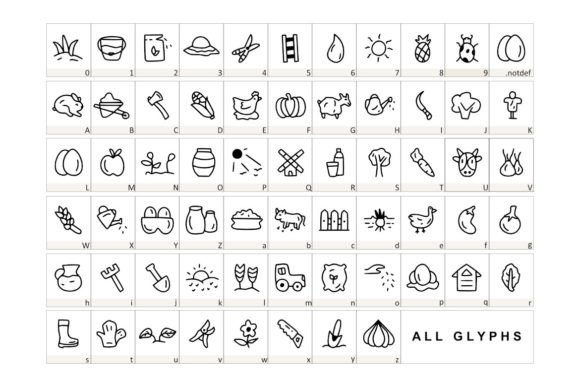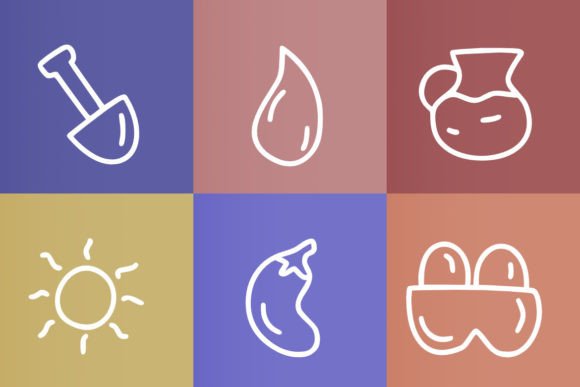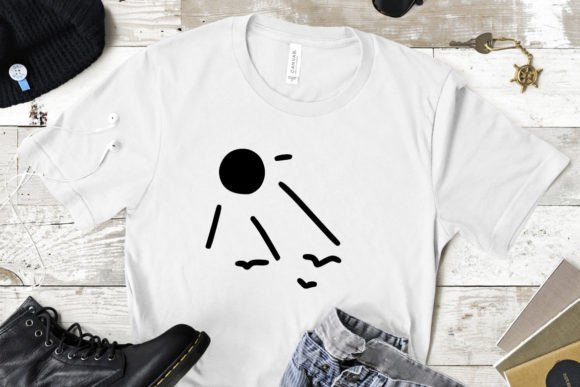
The Farm Font: A Cute and Useful Dingbats Font for Your Creative Projects
I still remember the time I was working on a project for a client’s farm-themed party, and I was struggling to find the perfect font to match the rustic yet playful vibe. The client wanted stickers, posters, and t-shirts that would make their guests feel like they’re in a sunny meadow, surrounded by happy animals and lush greenery. That’s when I stumbled upon the Farm font, a delightful dingbats font that instantly became my go-to choice. In this article, I’ll share my love for the Farm font, its features, and how to make the most of it in your creative projects.
An Honest Review of Farm Font
What I Love About Farm Font ✨
- Its adorable and whimsical design, perfect for farm-themed or outdoor-inspired projects 🌼
- A wide range of glyphs and symbols, including animals, plants, and farm equipment 🐄
- Easy to read and use, even for non-designers 📚
- Perfect for a variety of applications, from stickers and posters to t-shirts and cards 🎨
While the Farm font is an excellent choice for many projects, there are a few things to keep in mind:
- Some glyphs might be a bit too stylized for very formal or professional projects 🤔
- Limited language support, mainly focused on English and some European languages 📝
The Story Behind Farm Font
The Farm font was created by a talented type designer who wanted to capture the playful, rustic essence of farm life. Inspired by vintage farm signs, country roads, and sunny meadows, the font is designed to evoke a sense of simplicity and joy. Whether you’re a designer, crafter, or hobbyist, the Farm font is sure to bring a smile to your face and a touch of whimsy to your projects.
| Font Name | Farm Font |
| Author | YandiDesigns |
| What type of projects is Farm font best suited for? | Farm font is perfect for farm-themed or outdoor-inspired projects, such as stickers, posters, t-shirts, cards, and more. |
| Are there any language limitations with Farm font? | Farm font has limited language support, mainly focused on English and some European languages. |